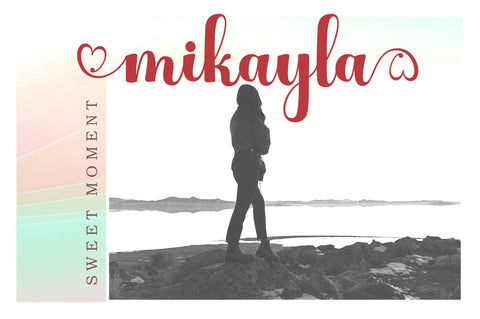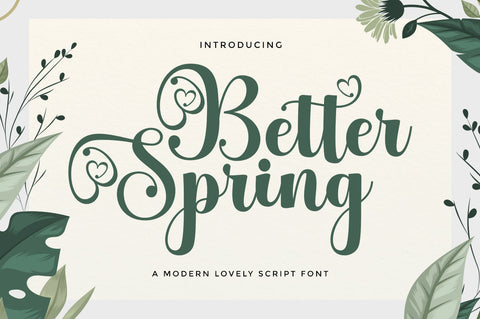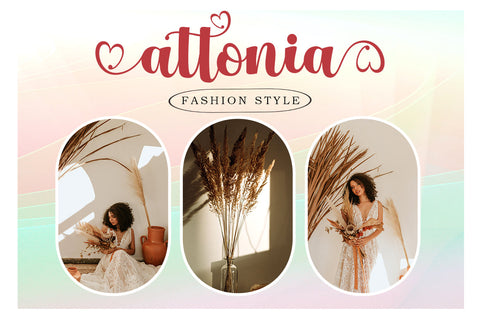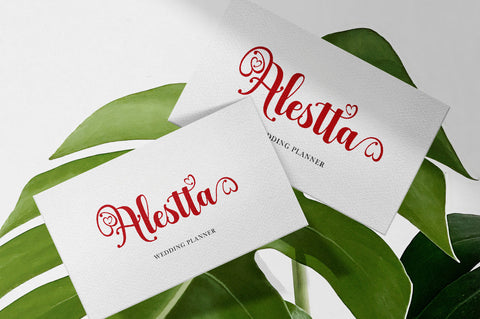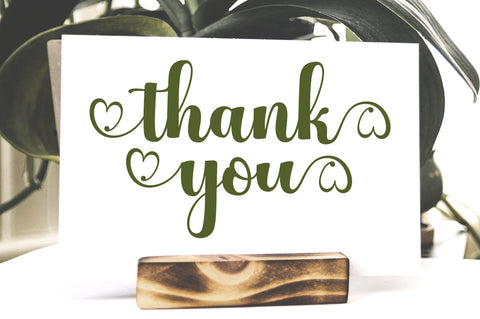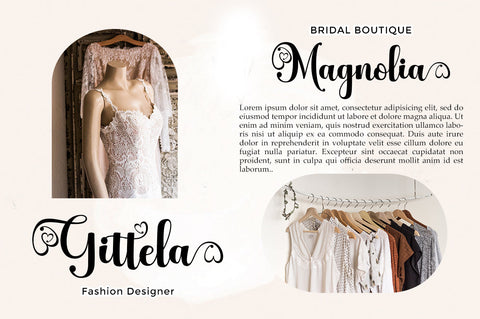
Better Spring Script
Hello everyone, I would like to introduce my newest font Better Spring Lovely Font Script is a beautiful modern calligraphy typeface, I hope you will be interested in this font, if you want to use it for your work.
This font can be used easily and simply because there are many features in it. contains a full set of lowercase and uppercase letters, a wide variety of punctuation marks, numbers, and multilingual support. the font also contains many ligatures and contains many alternative Style Sets such as heart stroke alternatives to combine two words, for example: Better Spring .
Better Spring Font is perfect for today's emerging market design, this font has a stylish, trendy, natural and soft font, with this font you can take advantage of any occasion is a great way to highlight the celebration
the best of parties, because this font will be an advocate for the cause
such as wedding invitations, branding, parties, graduations, birthdays, gatherings, etc.